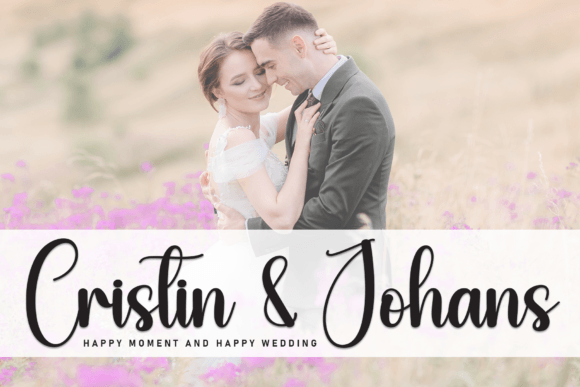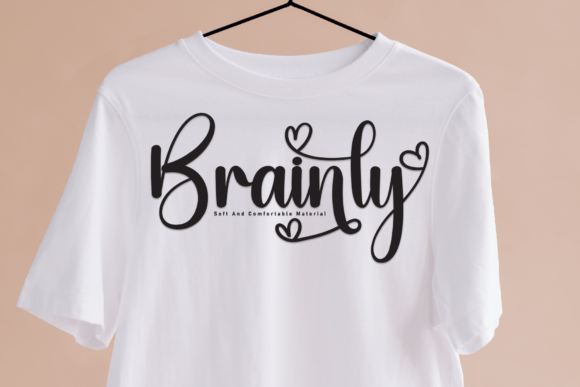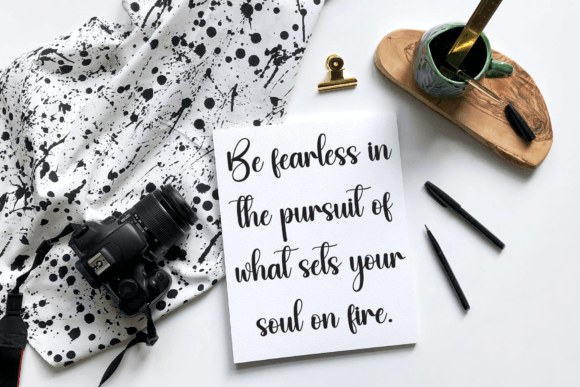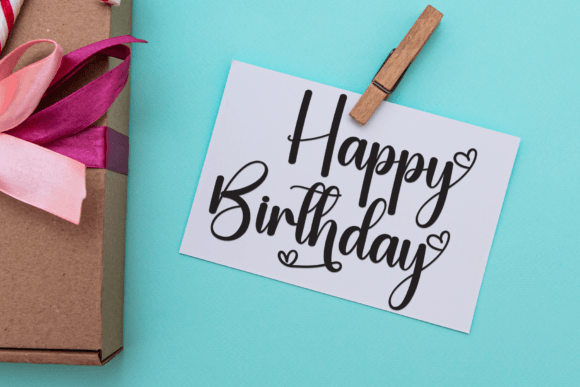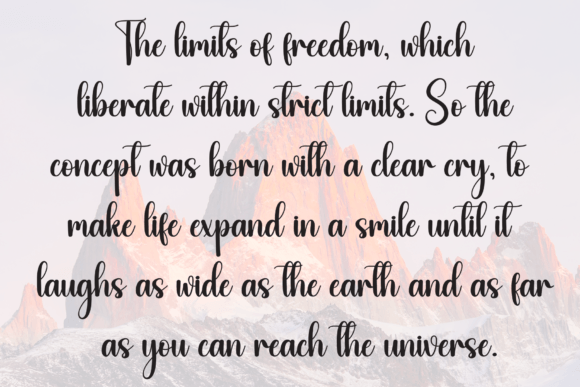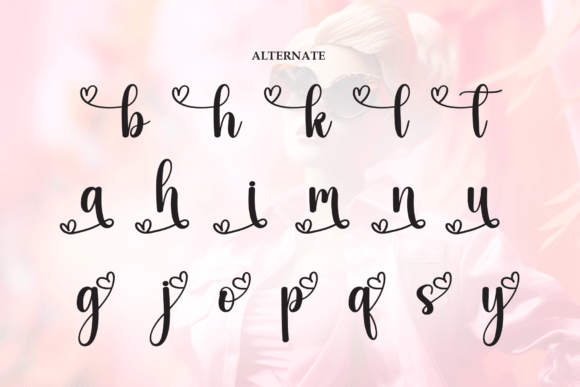
Introduction to Hello Barbies Font
Hello Barbies is a sweet and delicate handwritten font.
Dainty and joyful, this font will be ideal for writing wedding invitations, cards or any other design that may need a romantic, personalized touch .
Key Features of Hello Barbies Font
Why Choose Hello Barbies Font?